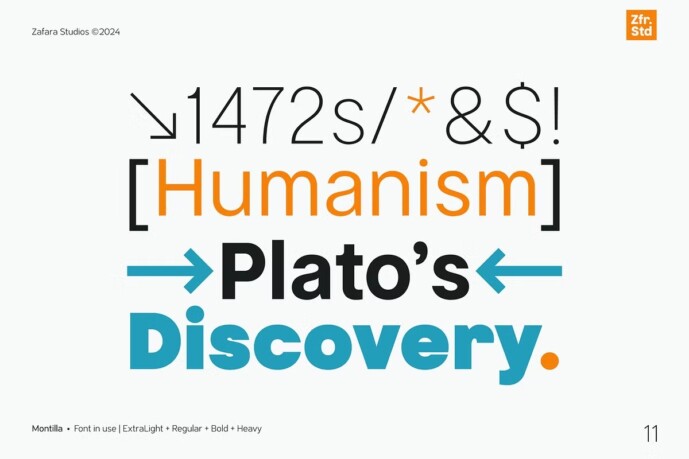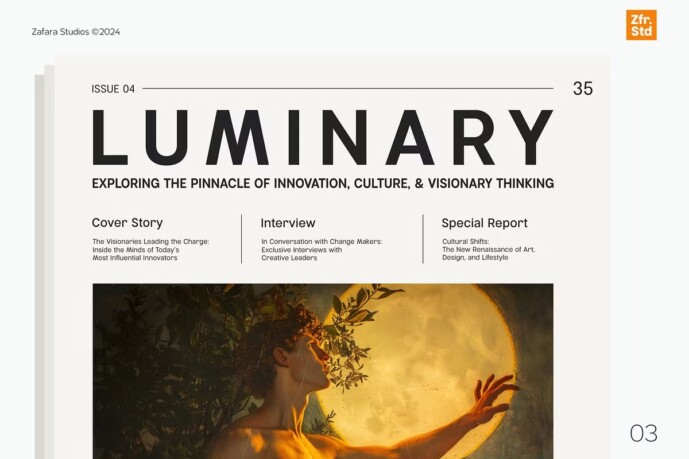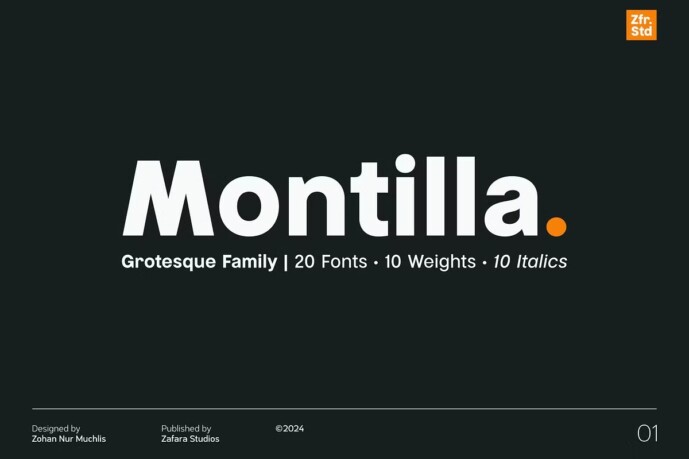
Montilla Font
Designer: Zafara™
Montilla Font is a versatile typeface designed clean and geometric with minimal decoration, making it easy to read and suitable for a variety of applications. It has a neutral and unobtrusive design, making it ideal for professionals and contemporary where clarity and efficiency are key. Montilla is ideal for corporate branding, editorial design, user interfaces, advertising, signage, product packaging, educational materials, and creative projects, among others. With 10 weights from thin to heavy, Montilla offers a wide typographic spectrum, allowing for customized emphasis and hierarchy in body text accompanied by 10 matching italics.